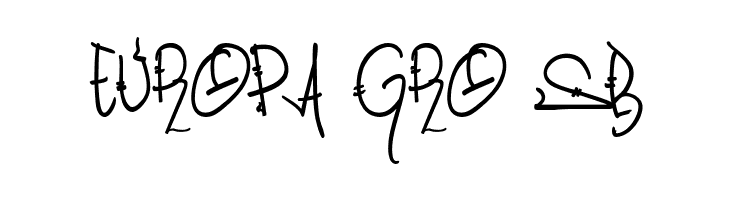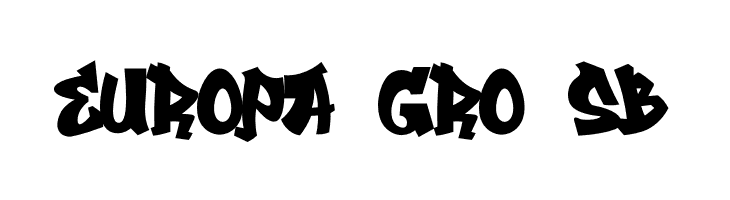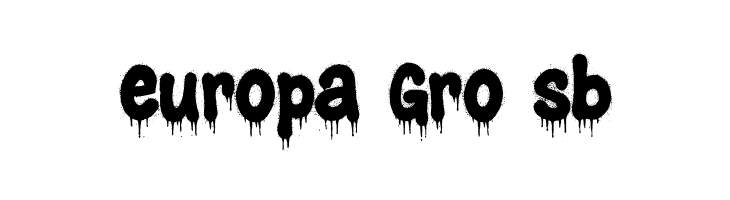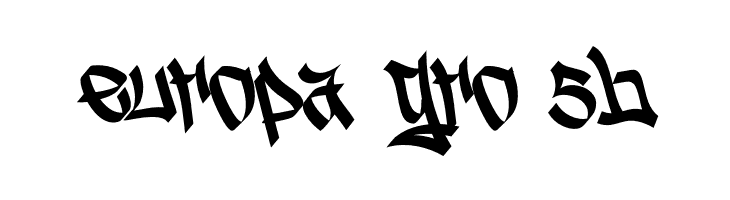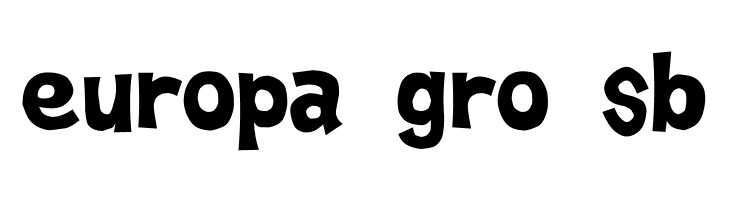
A playful, semi-italic font with bold, rounded characters.
A playful, casual handwritten font with rounded, smooth letterforms.
A dynamic, flowing italic script font with smooth, rounded strokes.
A playful, bold, and slightly condensed font with rounded edges.
A bold, playful font with rounded edges and a strong presence.
A bold, expanded italic font with smooth, rounded strokes for a dynamic and friendly look.
A geometric, angular font with a futuristic and edgy design.
A geometric, angular font with thin, linear strokes for a modern look.
A decorative and whimsical font with intricate curls and loops.
A playful, hand-drawn font with decorative uppercase and clean lowercase letters.
Urban-inspired dingbat font with grunge street illustrations.
A bold, edgy font with jagged strokes and a rebellious style.
A bold, stylized 'A' pattern with strong contrast and three-dimensional effects.
A bold, angular font with sharp, geometric edges for a modern, edgy look.
A playful, hand-drawn font with bold, flowing characters.
A playful, decorative font with swirling embellishments and whimsical charm.
A bold, distressed font with a grunge, urban street art vibe.
A bold, outlined collegiate-style font with a strong, impactful presence.
A bold, cursive font with dynamic strokes and elegant flourishes.
A fluid, cursive script font with interconnected letters and a natural handwriting style.
A fluid and elegant script font with dynamic curves and balanced rhythm.
A whimsical, hand-drawn font with irregular strokes and playful serifs.
A bold, geometric font with a modern and impactful style.
A bold, playful handwritten font with rounded, organic shapes.
A bold, playful font with a Western-inspired, handcrafted look.
A playful and elegant script font with a handwritten style.
A geometric, angular font with a modern, urban aesthetic.
A modern, decorative font with bold outlines and a crosshatch fill.
A bold, angular font inspired by Chicano street art with a strong, edgy style.